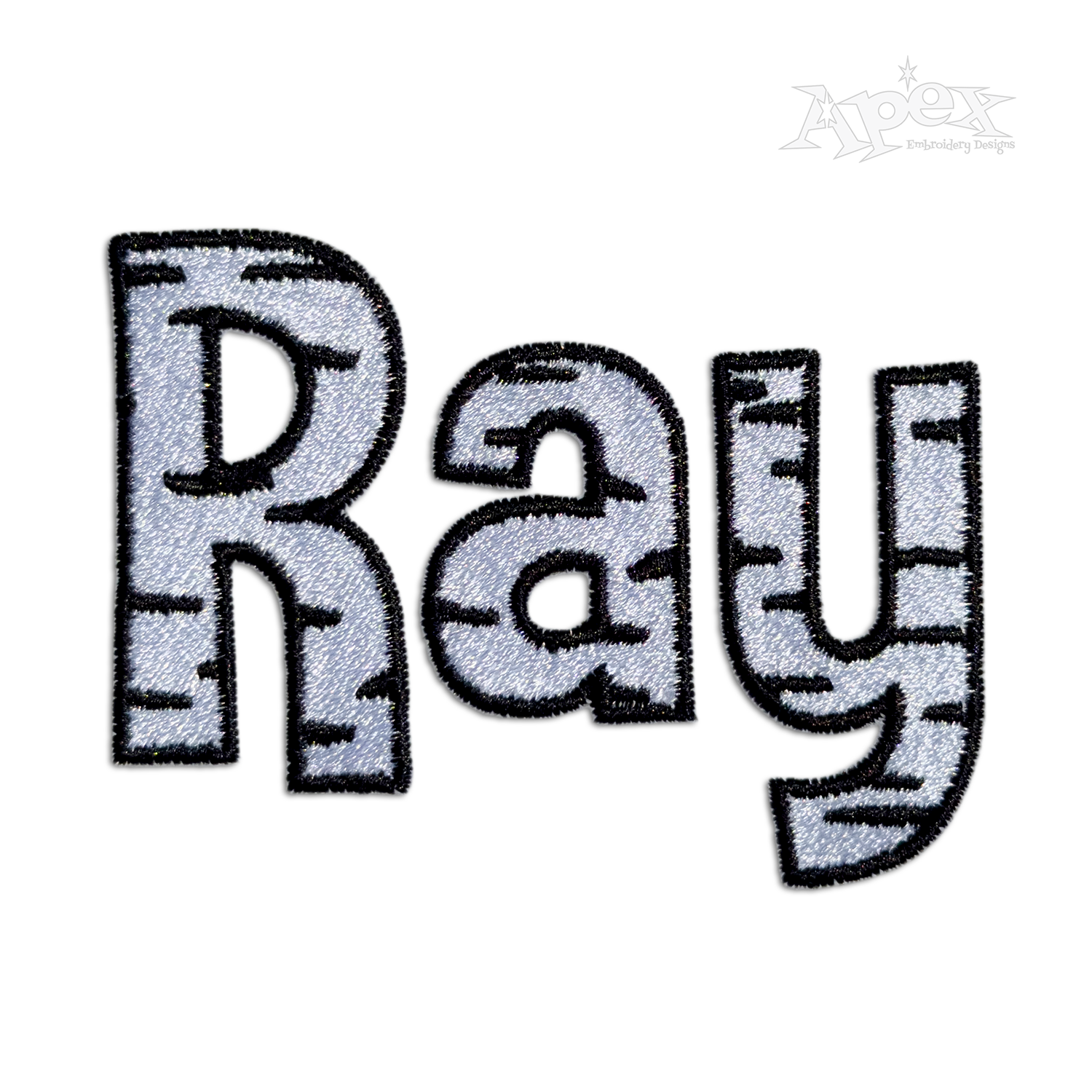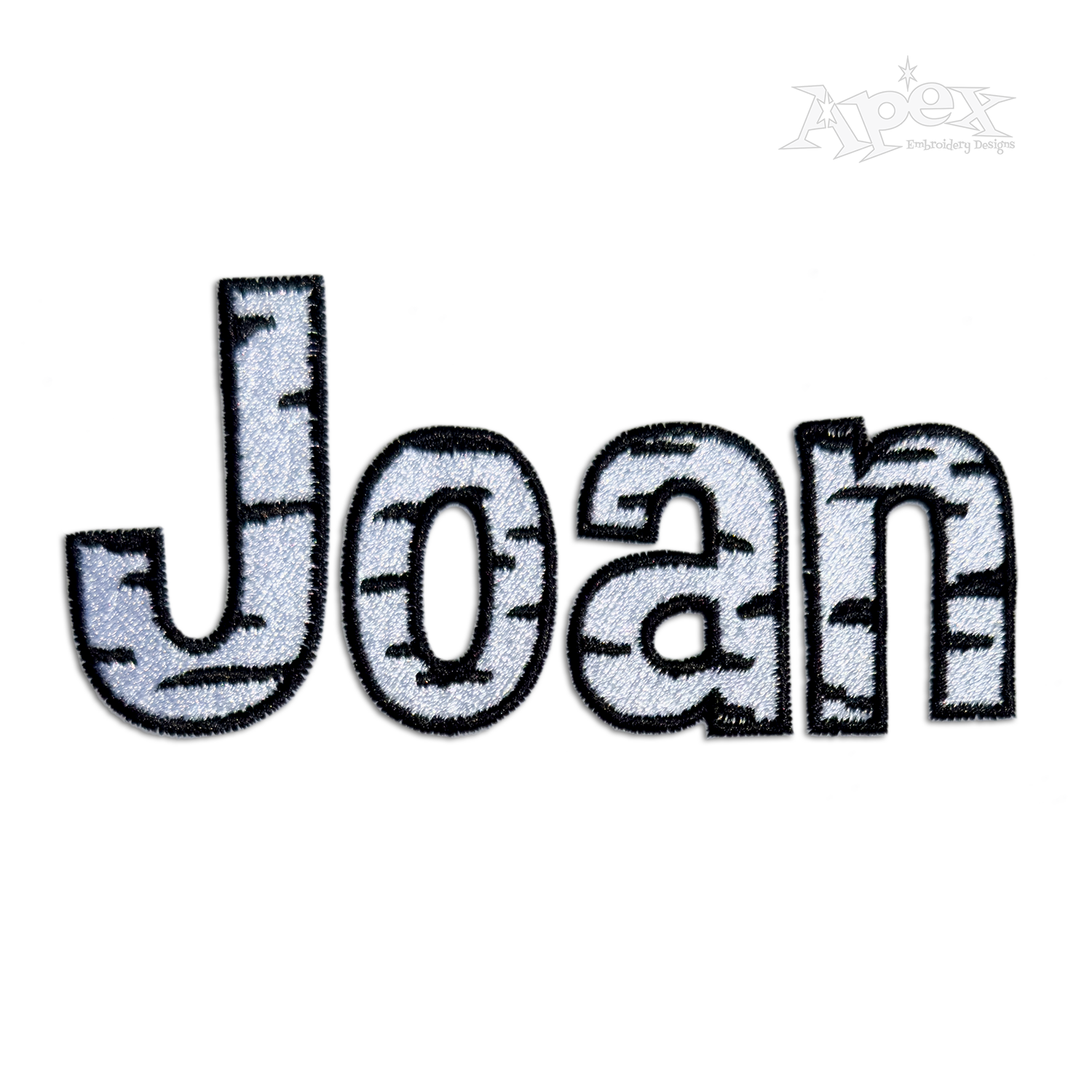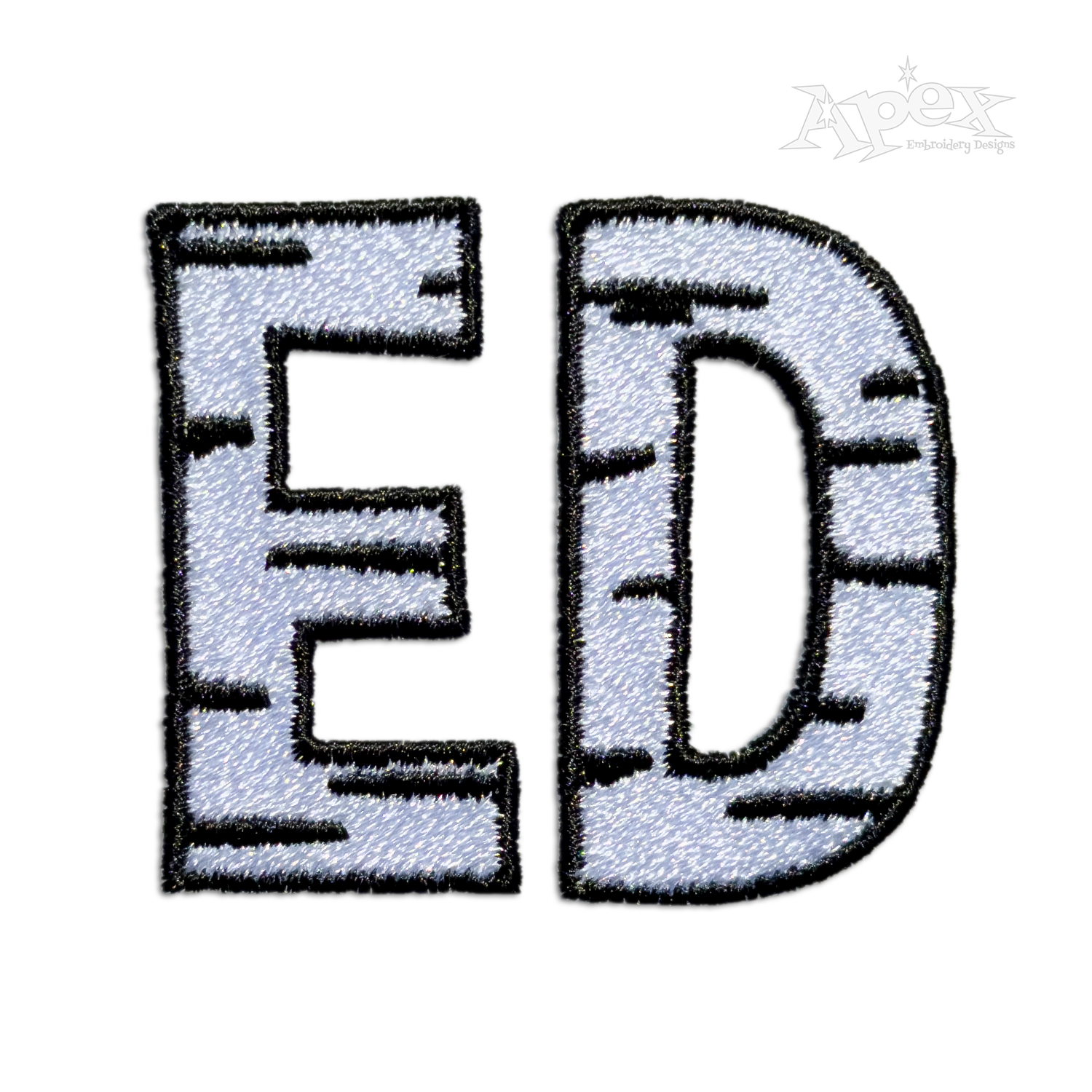
Birch Embroidery Font
Wander through an alpine grove where silver-white trunks catch the morning light and dark, horizontal bark striations tell the tale of mountain seasons. In digitizing the Birch Embroidery Font, our studio captured this timeless organic texture and translated it into a sculptural stitch pattern. Each letterform evokes the quiet grandeur of a Colorado forest, balancing bold graphic contrast with an earthy warmth. Designed for makers who appreciate refined wilderness aesthetics, this alphabet transforms ordinary fabric into an evocative canvas of mountain luxury and personalized craftsmanship.
Project Ideas for Birch Embroidery Font
The distinctive timber motif introduces a refined rustic charm across diverse textiles, lending itself naturally to both modern farmhouse living and rugged outdoor leisure:
- Cabin & Hearth Textiles: Monogram substantial wool camp blankets, woven tapestry cushions, and linen lodge runners to infuse living spaces with woodsy warmth.
- Bespoke Outdoor Gear: Embroider heritage waxed-canvas tote bags, heavyweight fleece pullovers, and weekend duffels with resilient outdoor monograms.
- Mountain Weddings & Gatherings: Personalize keepsake welcome totes, bridal flannel shirts, and embroidered guestbook covers for rustic destination celebrations.
- Holiday & Family Heirlooms: Stitch dramatic initial monograms onto cozy holiday stockings, flannel pajama sets, and customized timber-inspired gift wraps.
Because the Birch letterforms possess strong vertical lines and organic visual weight, thoughtful placement allows the intricate bark effect to shine:
- Center Stage: Position 4-inch or 6-inch letters prominently on the central face of throw pillows, duvet shams, or blanket panels to anchor the room’s design.
- Diagonal Corner Orientation: Angle smaller 2-inch initials 45 degrees into the hemmed corners of natural linen napkins or picnic throws for an unexpected artisan touch.
- Left Chest & Yoke: Place 2-inch monograms over the left chest on twill workshirts, or scale up to a 6-inch emblem centered beneath the back collar of denim and chore jackets.
Birch Embroidery Font Craft & Letterform Details
Digitizing bark texture requires a delicate balance of structure and irregularity. Rather than applying a flat decorative pattern, our digitizers hand-charted the directional flow of each satin stroke to mirror the natural growth rings and outer peel of authentic white birch. Deeply inset carved accents create micro-shadows under ambient light, mimicking the distinct natural notches of living forest timber without causing stitch bulk or fabric distortion.
Every branch-like stroke and upright trunk maintains a sturdy, balanced footprint, ensuring pristine edge definition even through textured fabrics like waffle-weave cotton, canvas, and felted wool. It is an embroidery font born from the quiet wild, constructed with master precision for needlework that endures.